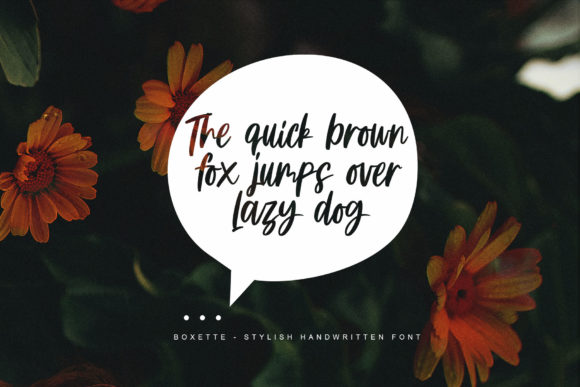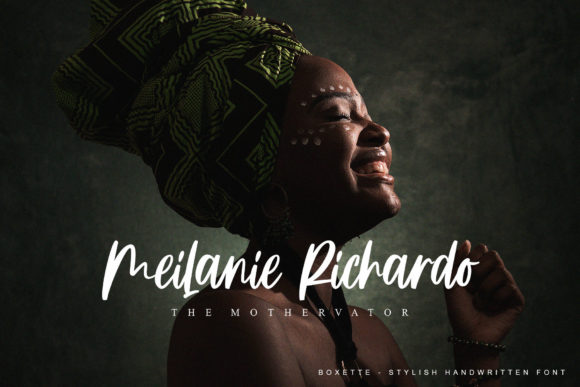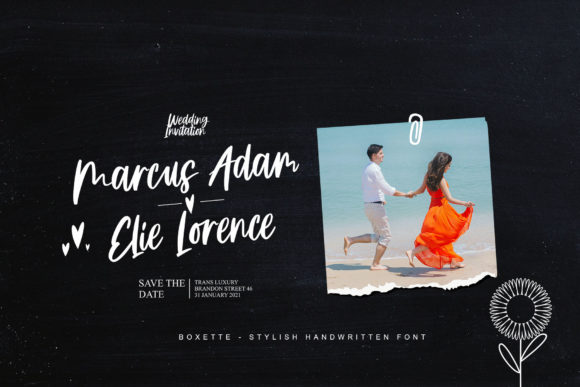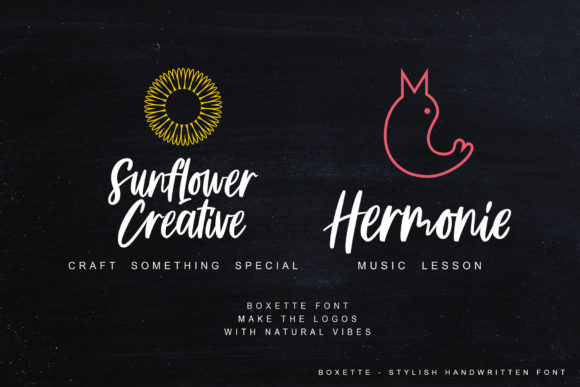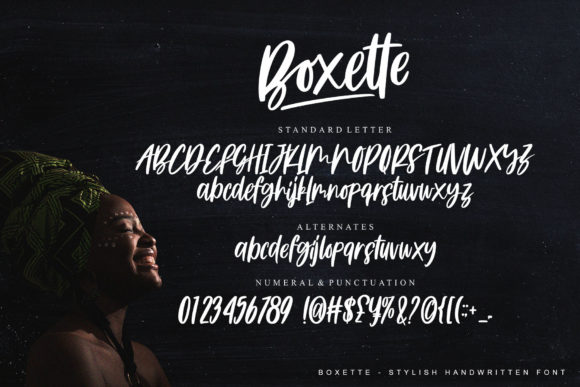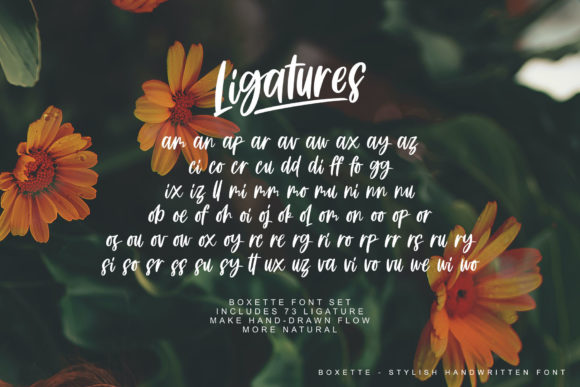
The Perfect Script for Your Next Design Project
As designers, we’ve all been there – staring at a blank canvas, trying to find the perfect font to bring our vision to life. It’s a moment of pure creativity, when the possibilities seem endless and the right font can make all the difference. For me, that moment came when I discovered the Boxette Font – a Casual and elegant handwritten font that’s become a staple in my design toolkit.
With its distinct and casual letters, the Boxette Font is a masterpiece that adds a touch of personality to any design. Whether you’re working on a branding project, a social media campaign, or a personal blog, this font is sure to make your content stand out. And with its PUA encoded feature, you can access all the characters with ease, making it a valuable addition to any designer’s library.
- Unique Characteristics: Boxette Font features a unique blend of geometric and handwritten elements, creating a distinctive and eye-catching design.
Boxette Font Review
I recently had the chance to work with the Boxette font, and I’m excited to share my honest thoughts with you.
- ✨ Unique and modern design: The Boxette font has a fresh and modern aesthetic that makes it perfect for contemporary designs.
- ✨ Great for digital use: The font is optimized for digital use, making it perfect for websites, apps, and social media platforms.
- ✨ Versatile: The font comes in various weights and styles, making it suitable for a wide range of applications, from headings to body text.
- ⚠️ Limited script support: While the font has a modern design, it may not be the best choice for projects that require extensive script support.
- ⚠️ Not ideal for print use: The font’s design may not be as effective in print, where the text may appear too thin or delicate.
Overall, I think the Boxette font is a great addition to any designer’s toolkit. Its unique design and versatility make it perfect for modern digital projects. However, it may not be the best choice for projects that require extensive script support or print use.
Getting the Most Out of Boxette Font
Here are some tips for getting the most out of Boxette Font:
- Use it in bold and italic styles to add emphasis to your text.
- Combine it with other fonts to create a unique and eye-catching design.
Boxette Font is commonly used in:
- Graphic design projects, such as logos and brochures.
- Typography
Alternatives to Boxette Font
Montserrat is a popular sans-serif font that is highly legible and versatile. It is ideal for use in digital products, logos, and large-scale typography. Montserrat is more geometric in design compared to Boxette Font, which is more rounded and elegant. When to use: Digital products, logos, and large-scale typography.
Merriweather is a classic serif font that exudes a sense of sophistication and elegance. It is suitable for use in print materials, such as books, magazines, and business cards. Merriweather is more formal and traditional compared to Boxette Font, which is more modern and playful. When to use: Print materials, such as books, magazines, and business cards.
Arimo is a clean and modern sans-serif font that is highly legible and versatile. It is ideal for use in digital products, logos, and large-scale typography. Arimo is more minimalist in design compared to Boxette Font, which is more decorative and ornate. When to use: Digital products, logos, and large-scale typography.